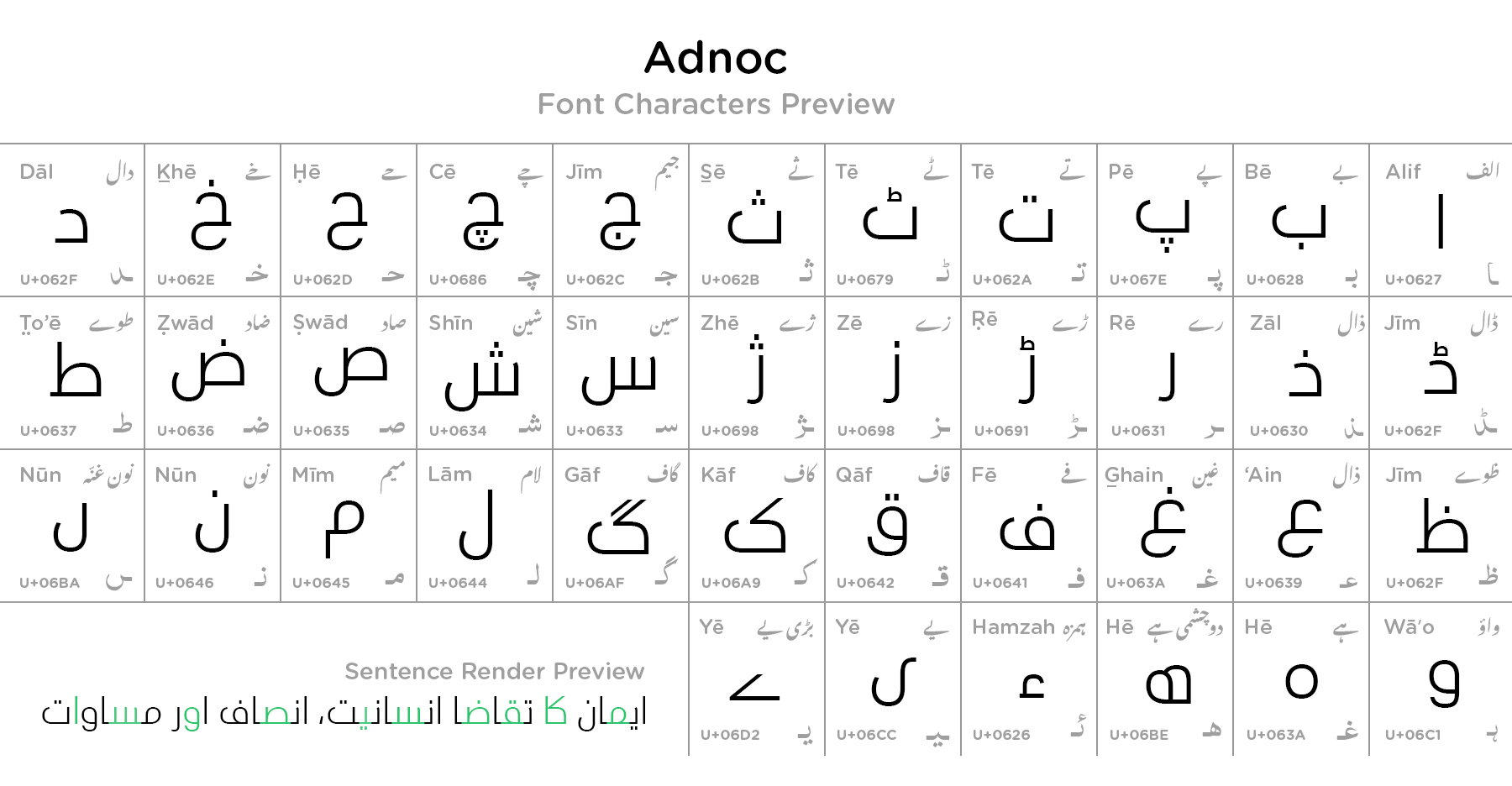
Adnoc is a Sans-serif rounded Arabic font with a linear appearance. It is designed by Dalton Maag Ltd, and its other registered trademarks include Aktiv Grotesk, Dalton Maag, and DaMa. The font offers an unembellished simple screen presence with uncluttered letterforms, making it highly legible. Adnoc font offers a wide range of characters, totaling 2,277, and an extensive set of glyphs, amounting to 3,755, ensuring comprehensive language support. Despite its lightweight, the font maintains a medium width, striking a balance between readability and elegance. It caters to multiple languages, including Arabic, Latin, Devanagari, Cyrillic, Hebrew, Greek, and symbols, making it versatile for various global applications.
Considering its physical characteristics, the font offers a sleek outlook with soft corners and curved edges. The font delivers a formal appearance with consistent thickness and solid stroke. Moreover, its moderate thickness makes it eligible for writing long textual blocks. It is highly legible on screen, even in smaller sizes. Therefore, it can be used in applications like content writing, drafting documents, branding, social media posts, newspapers, etc. Furthermore, Adnoc offers full support for various latest Unicode Standards, increasing its diversity even more. Its Unicode blocks cover a span from Basic Latin to special, encompassing diacritical marks, punctuation, mathematical operators, and more.